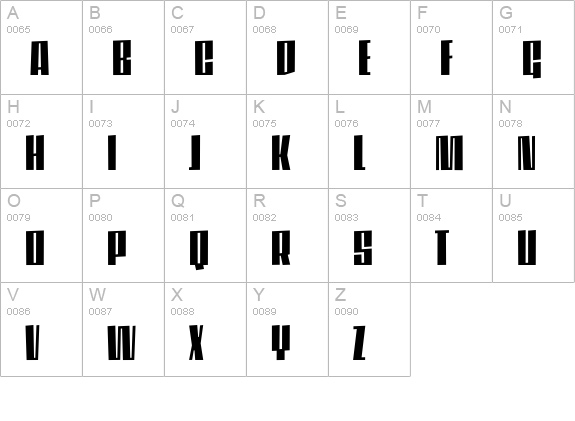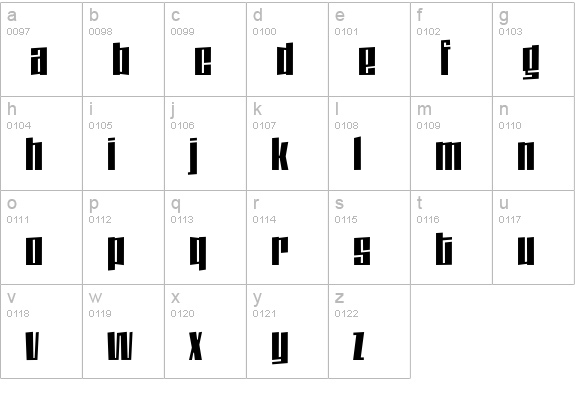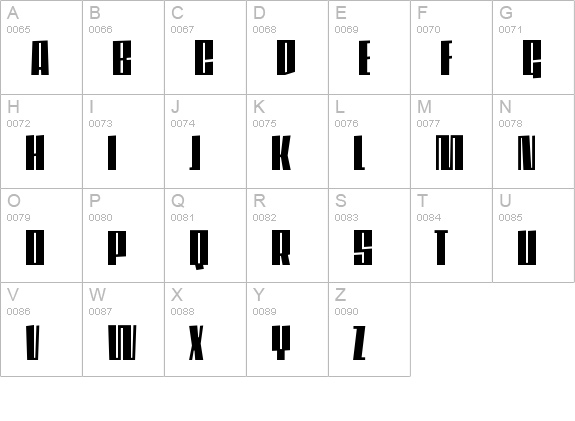
DaleysGothic-Bold Font Details
DaleysGothic-Bold is a strong, high-contrast variant in the DaleysGothic typeface family \xE2\x80\x94 well suited to headlines, attention-grabbing titles, and strong calls-to-action.
DaleysGothic-Bold is a striking and bold font that is perfect for adding a touch of gothic elegance to any design project. With its strong and powerful letterforms, this font commands attention and creates a sense of mystery and intrigue. The unique and intricate details of DaleysGothic-Bold make it stand out from other gothic fonts. Its sharp edges and dramatic strokes give it a distinct and captivating appearance, making it ideal for headlines, logos, and branding materials. What sets DaleysGothic-Bold apart is not only its remarkable aesthetics but also its accessibility. This font is freely available to download at FontsMarket.com, making it easily accessible to designers, artists, and enthusiasts alike. Whether you're working on a dark and edgy project or simply want to add a touch of gothic flair to your designs, DaleysGothic-Bold is the perfect choice. Its versatility allows it to be used in a variety of applications, from print to digital media, ensuring that your message will be conveyed with clarity and style. So why wait? Download DaleysGothic-Bold today from FontsMarket.com and unleash your creativity with this stunning and freely available font. Let its bold and captivating presence elevate your designs and leave a lasting impression on your audience.